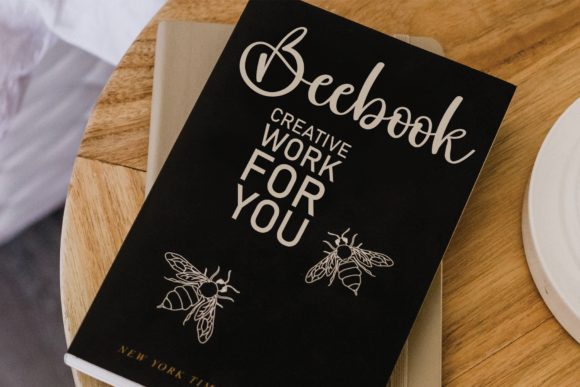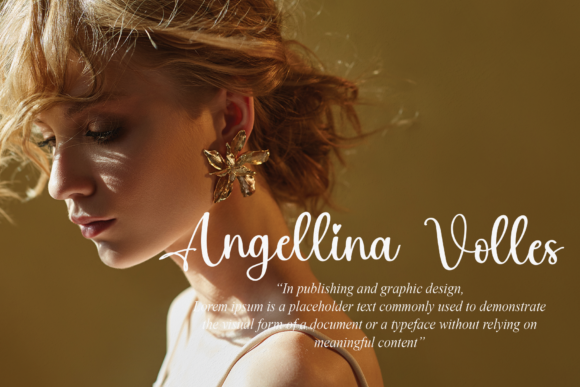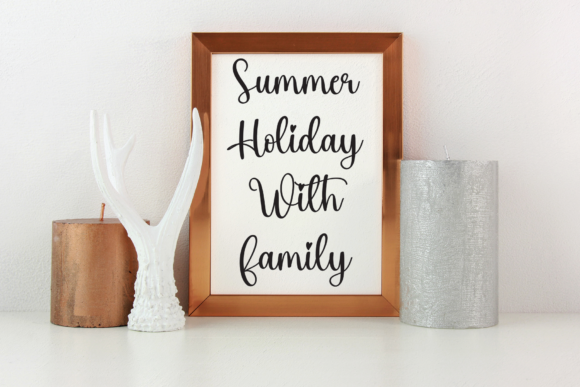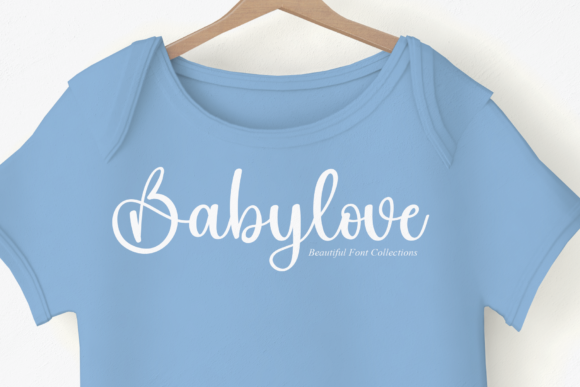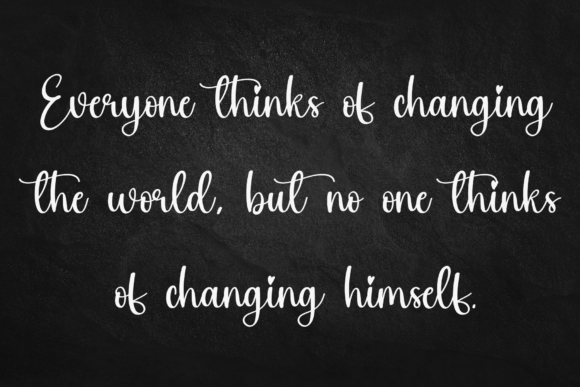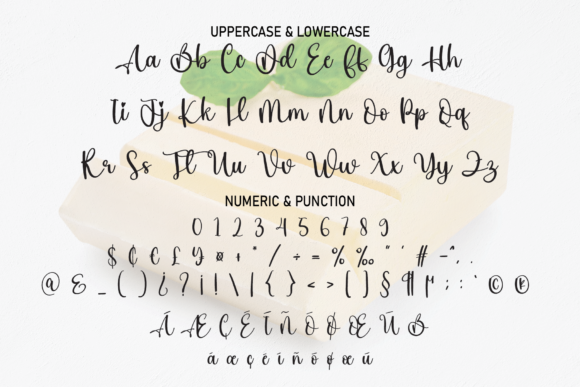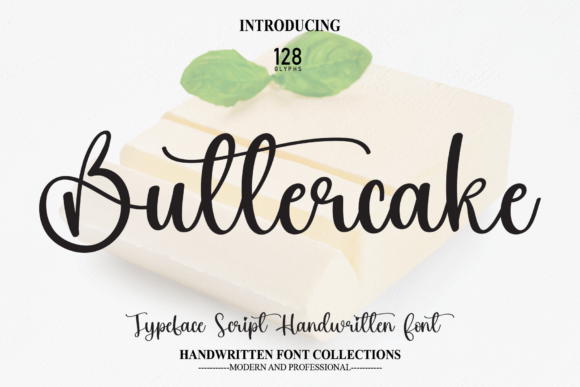
The Buttercake Font: A Sweet Addition to Your Design Toolkit
I’ll never forget the design project that led me to discover the Buttercake font. I was working on a branding project for a trendy bakery, and I was struggling to find the perfect font that captured their playful yet sophisticated vibe. That’s when I stumbled upon Buttercake, and it instantly became my go-to font for the project. In this article, I’ll share my love for this exquisite handwritten font, its features, and how to make the most of it in your designs.
An Honest Review of Buttercake Font
So, what makes Buttercake font so special? Here are some things I love about it:
• ✨ Classy calligraphic influences: Buttercake font boasts elegant, cursive strokes that evoke a sense of luxury and sophistication.
• ✅ Contemporary and fresh feel: Despite its classic roots, Buttercake font feels modern and on-trend, making it perfect for a wide range of design projects.
• 💫 Highly legible: The font’s clear and flowing script makes it easy to read, even at smaller sizes.
Of course, no font is perfect, and Buttercake has a few minor quirks:
• 🤔 Limited use of uppercase letters: While the font does include uppercase letters, they’re not as stylized as the lowercase letters. This might be a consideration if you need to use all-caps text.
• ⚠️ Some glyphs may require manual adjustment: Depending on the context, certain glyphs might require manual adjustment to ensure optimal spacing and alignment.
The Story Behind Buttercake Font
Buttercake font was designed with love and care by a talented type designer who’s passionate about creating beautiful, handwritten fonts. The designer’s inspiration came from traditional calligraphy and a desire to create a font that feels both classic and modern. The result is a font that’s perfect for a wide range of design projects, from branding and packaging to wedding invitations and more.
Is Buttercake font suitable for body text? While Buttercake font is beautiful, it’s best suited for headlines, titles, and short paragraphs. For body text, you may want to choose a more traditional font.